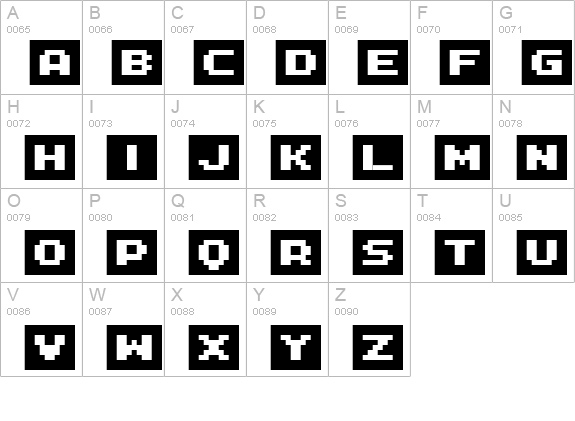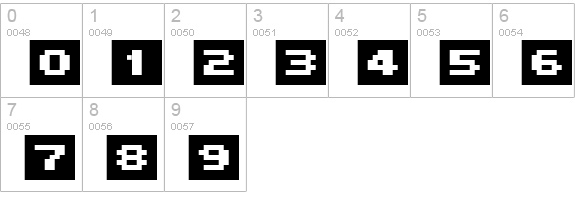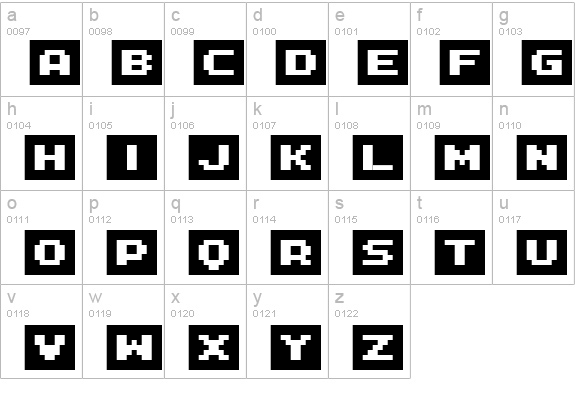
The FFF Interface04b font is a modern and sleek typeface that exudes a futuristic and tech-savvy vibe. Its clean lines and sharp angles make it perfect for use in digital and high-tech designs. This font is versatile and can work well in a variety of design projects, from websites to posters to logos. What sets FFF Interface04b apart is that it is available for free download at FontsMarket.com. This means that you can easily access this stylish font without any cost, making it a great choice for designers on a budget. Whether you're creating a cutting-edge website or a sleek branding project, FFF Interface04b is a fantastic option that combines style with affordability.